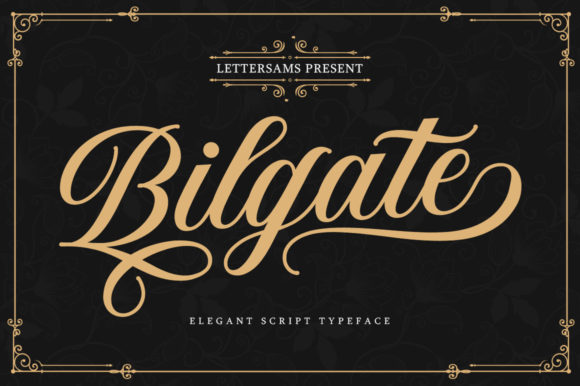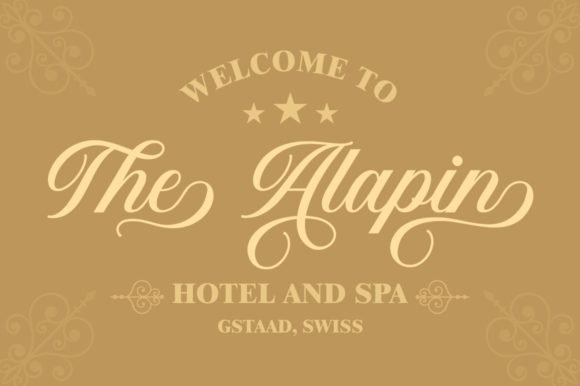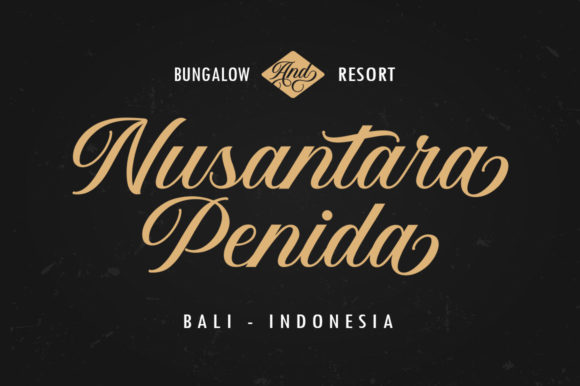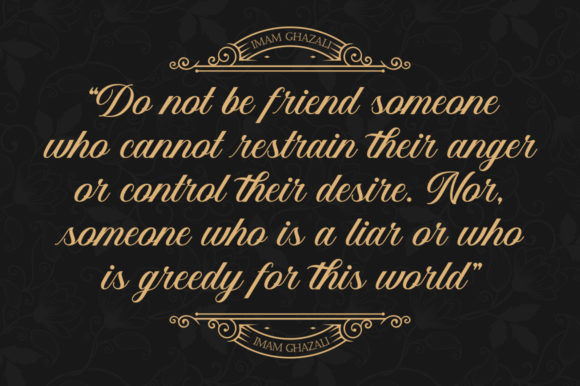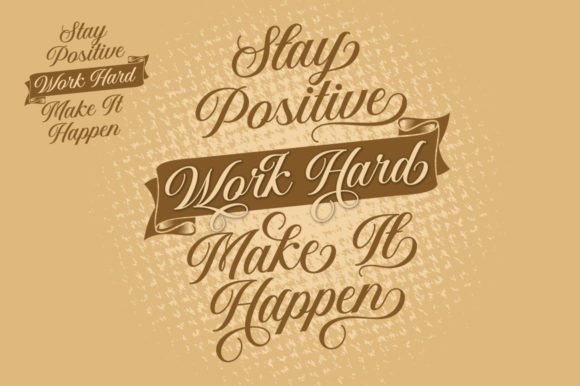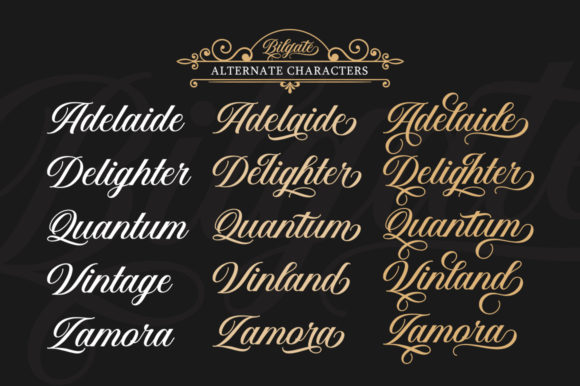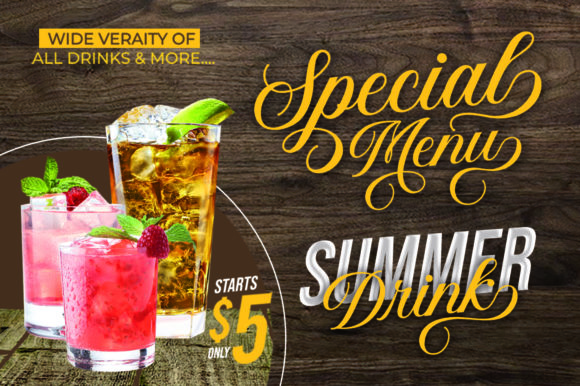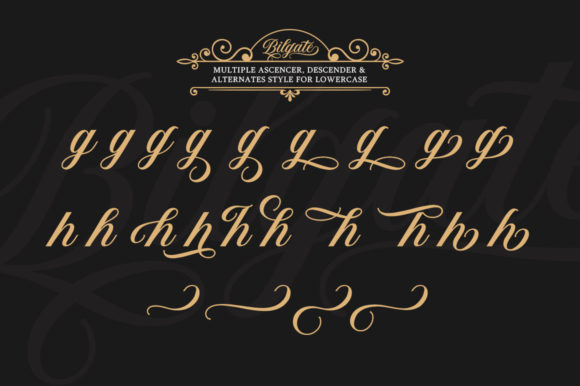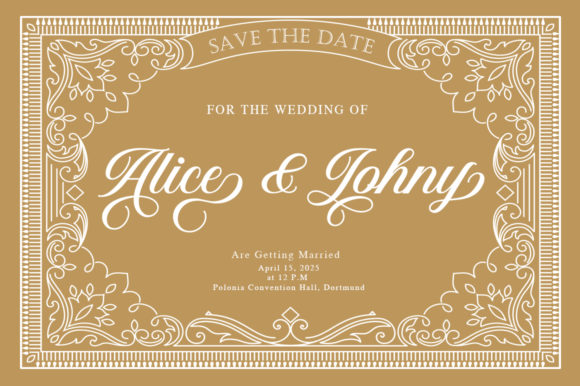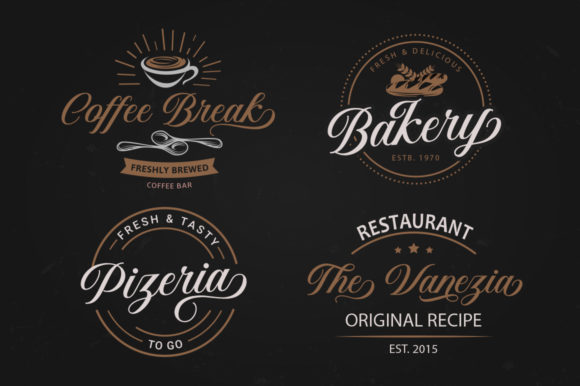
Bilgate Font
About Bilgate Font
Bilgate is a magical handwritten font carefully created with a touch of elegance. This font is PUA encoded which means you can access all of the amazing glyphs and swashes with ease!